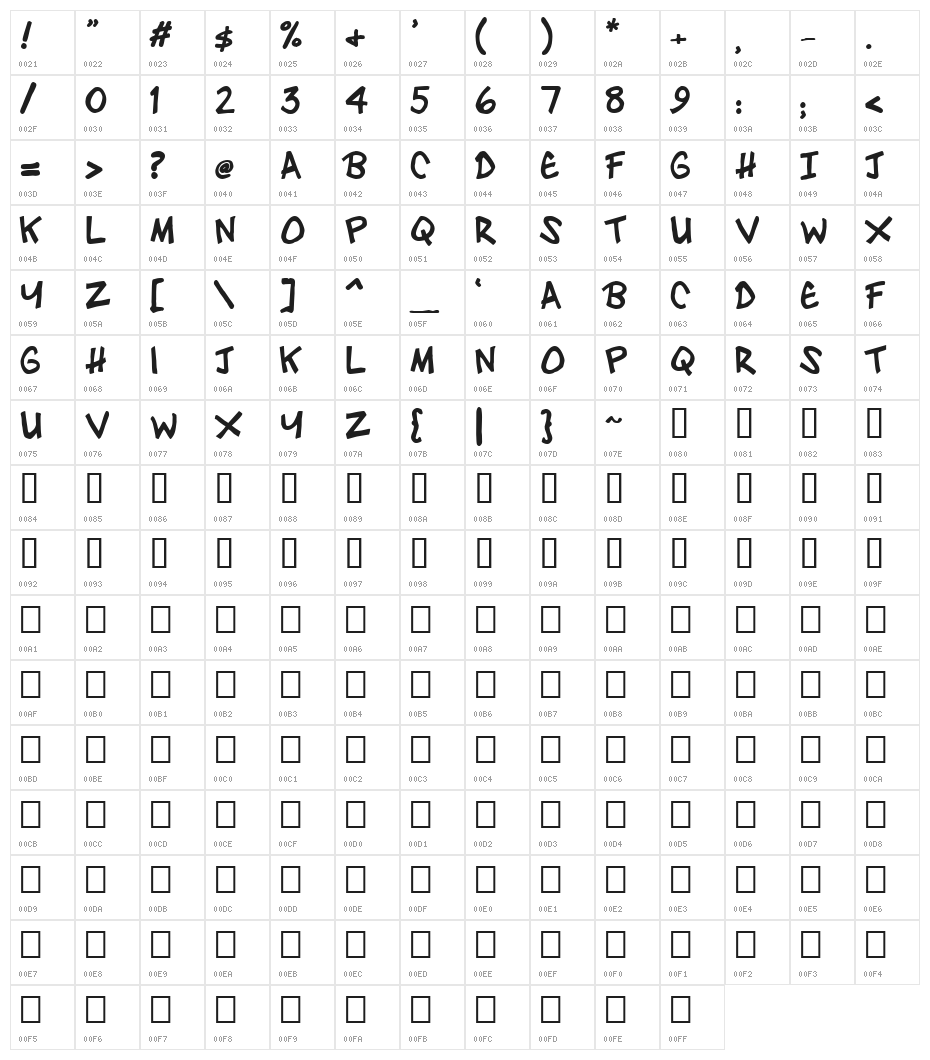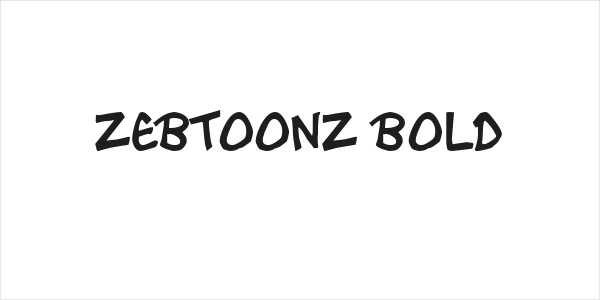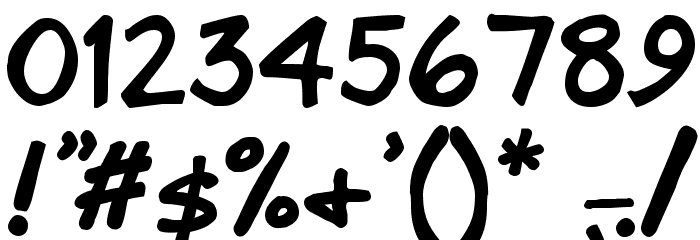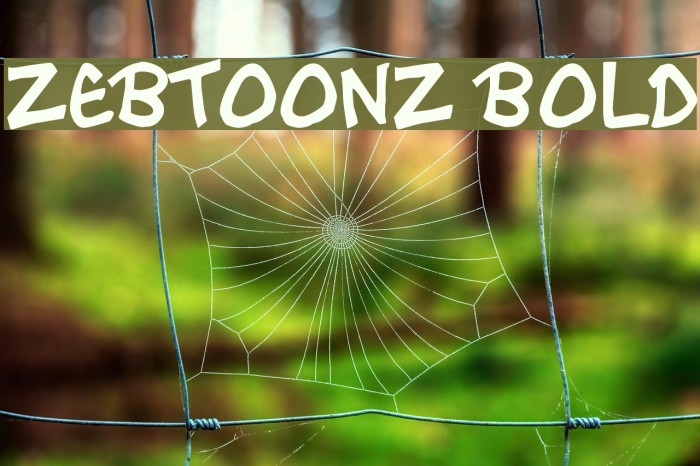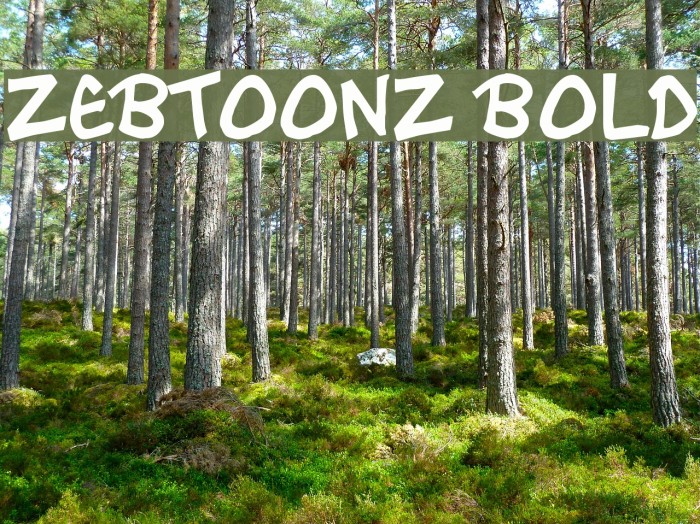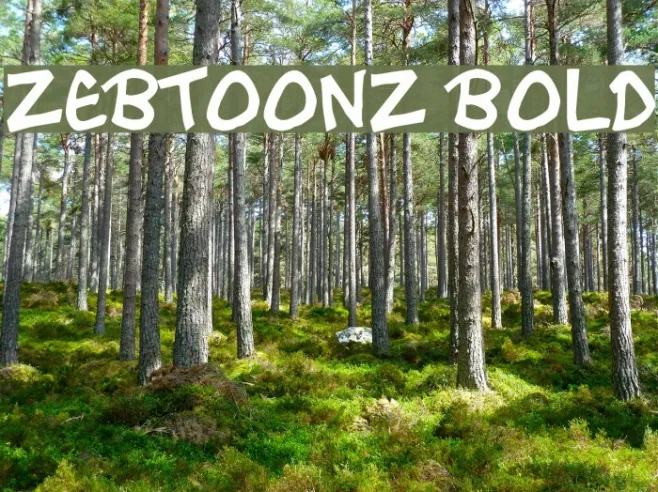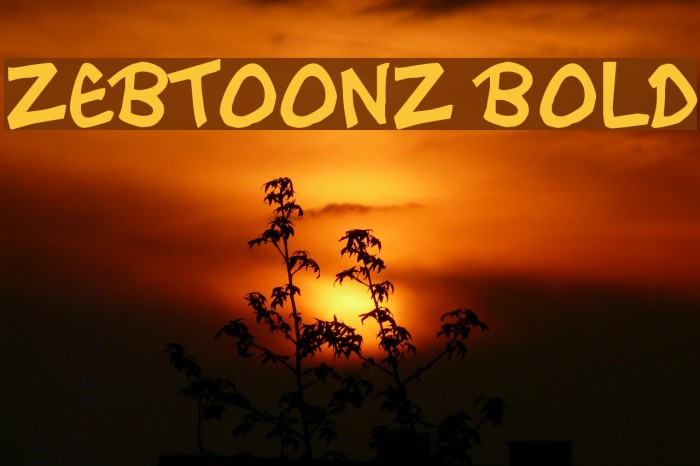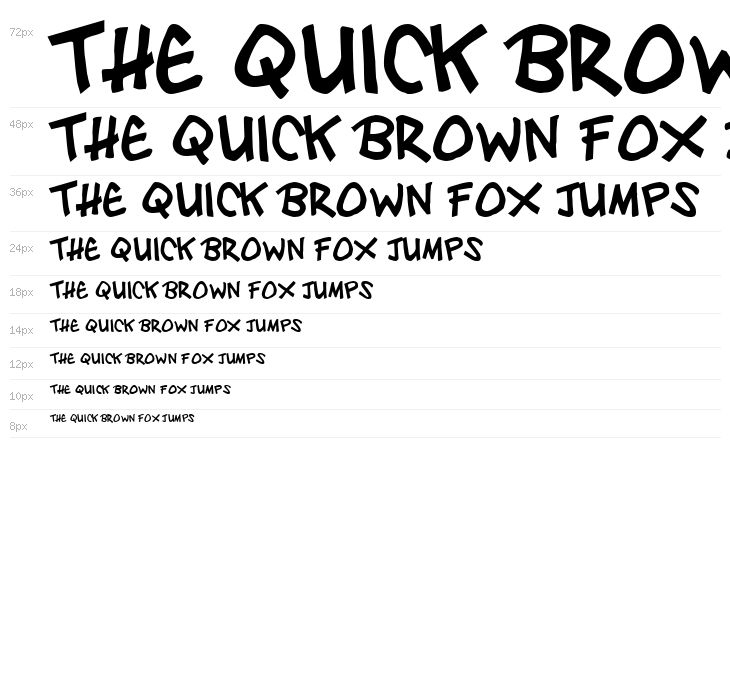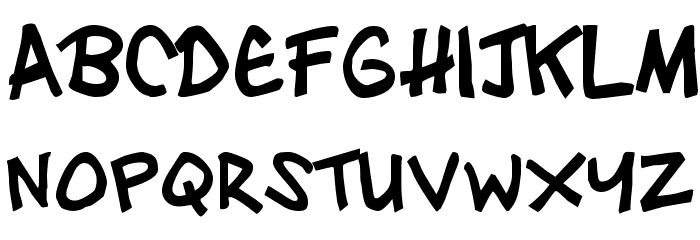
Zebtoonz Bold Font
Zebtoonz Bold Description
This font features a bold and playful handwritten style, characterized by its thick strokes and slightly irregular shapes. The letters have a dynamic and energetic appearance, with a casual and informal vibe. The uppercase and lowercase letters maintain a consistent style, while the numerals and special characters complement the overall design. The font's boldness makes it stand out, making it suitable for attention-grabbing headlines or creative projects.
| Proposed Projects | Ideal for comic books, children's books, playful branding, and creative posters. |